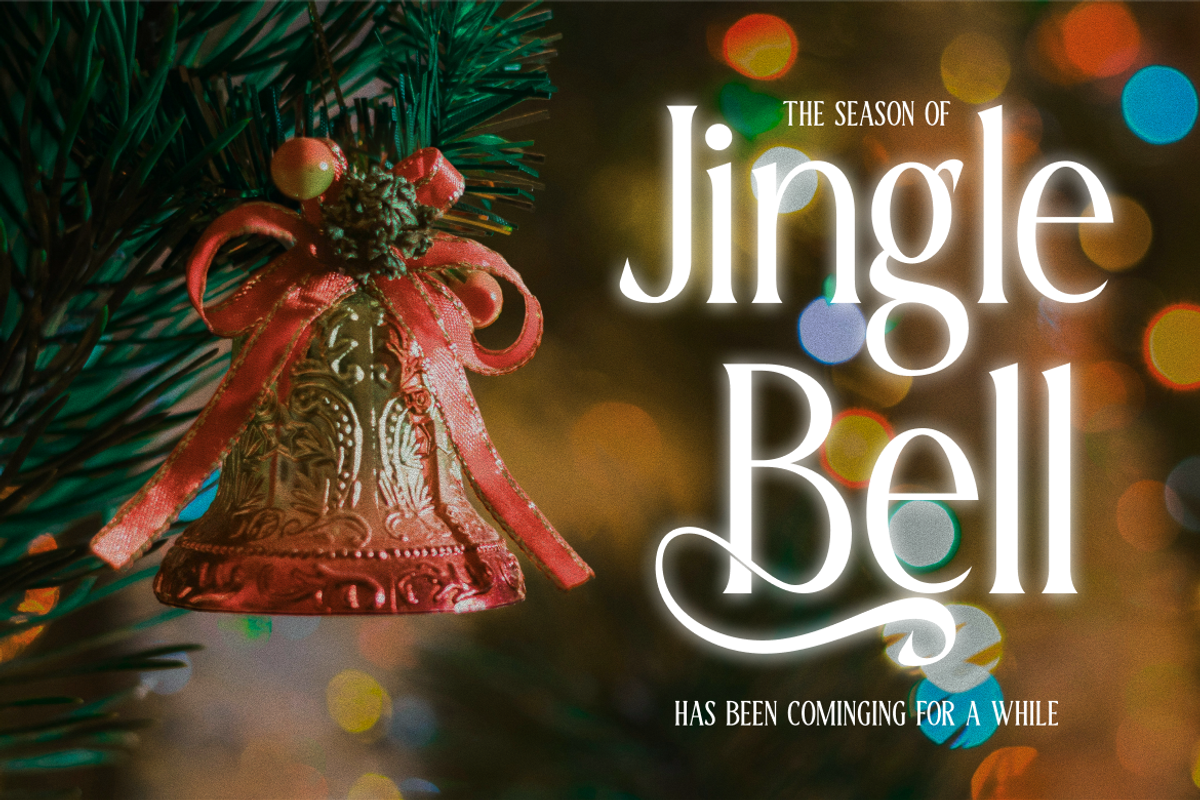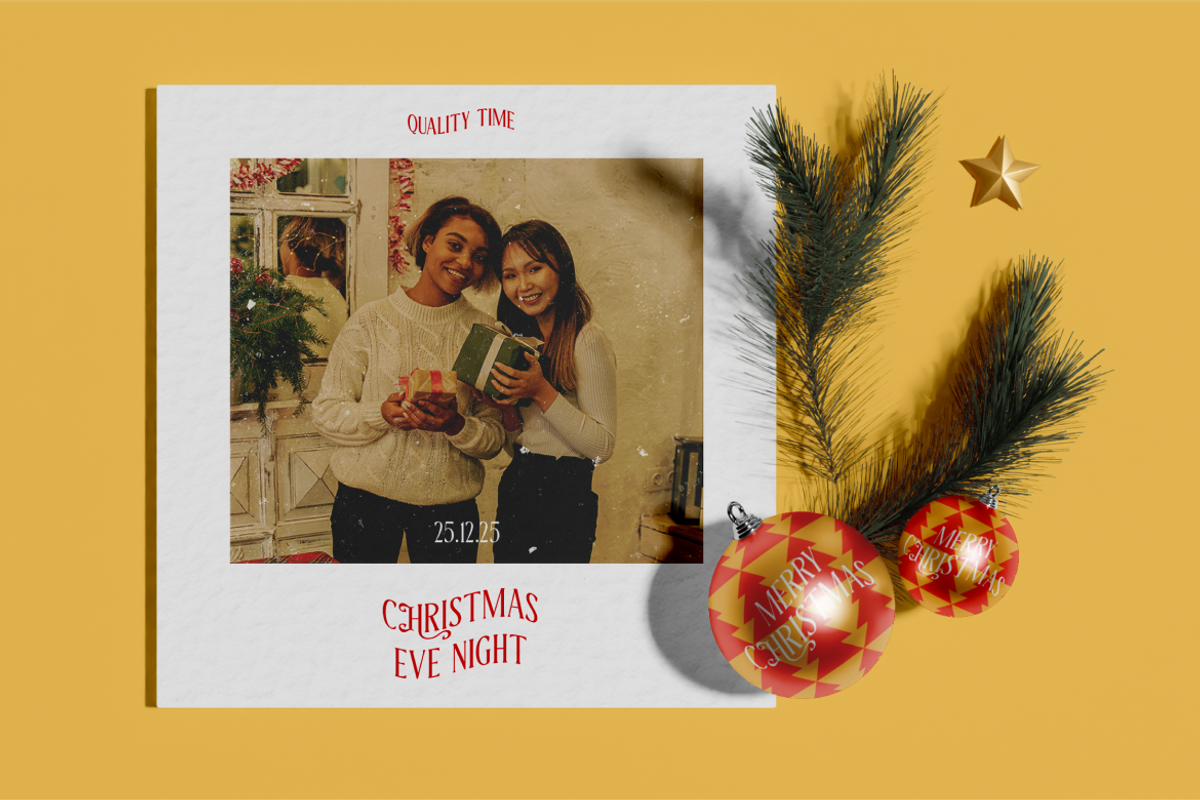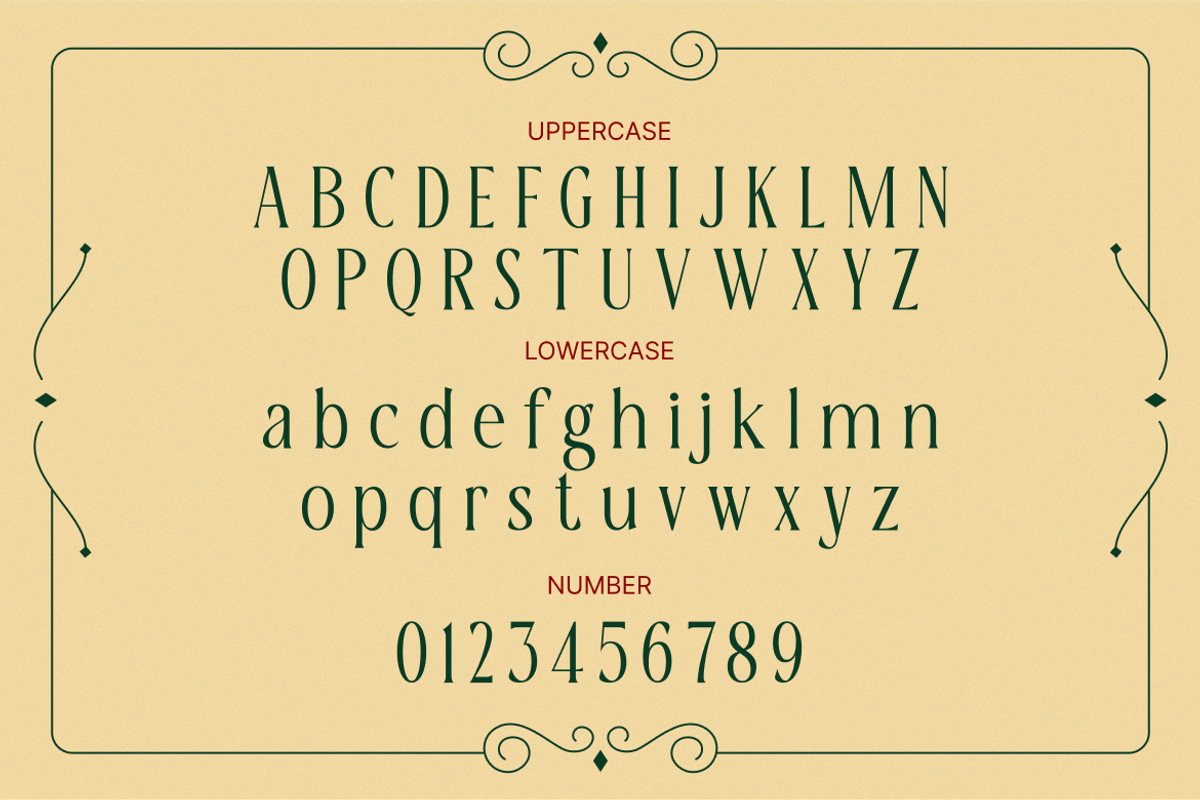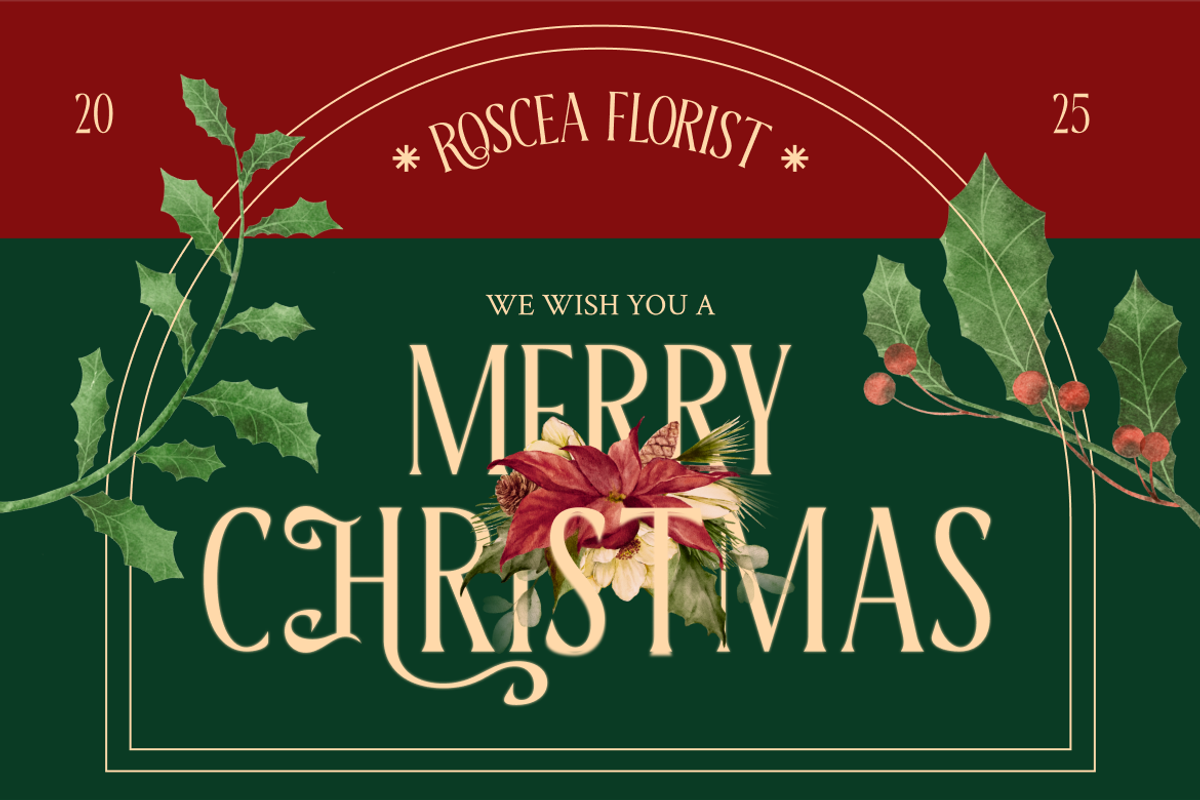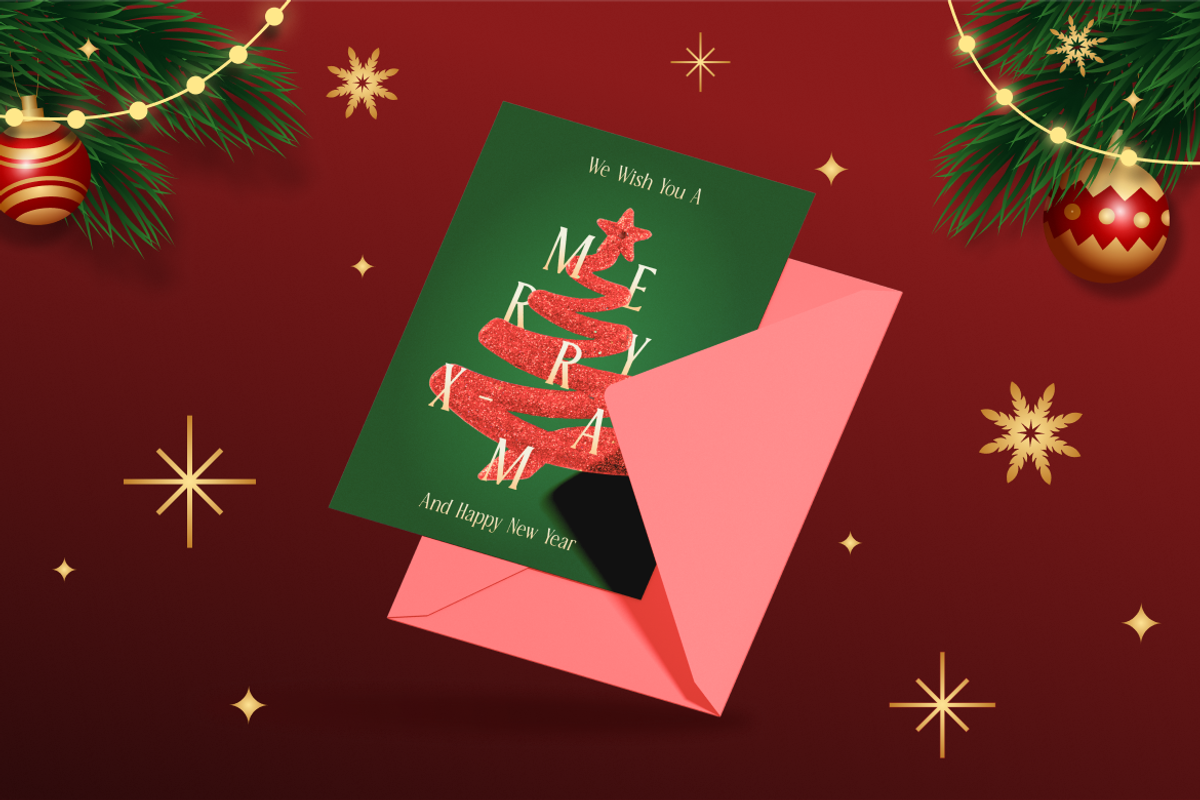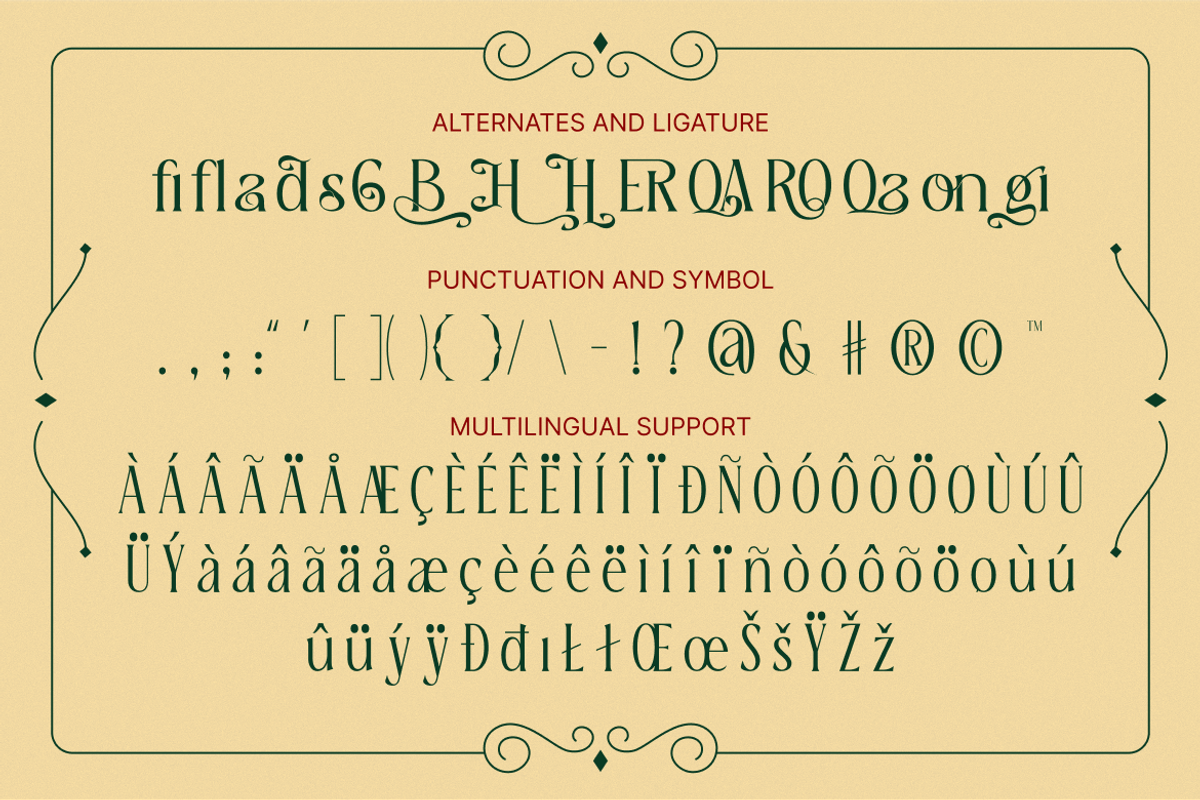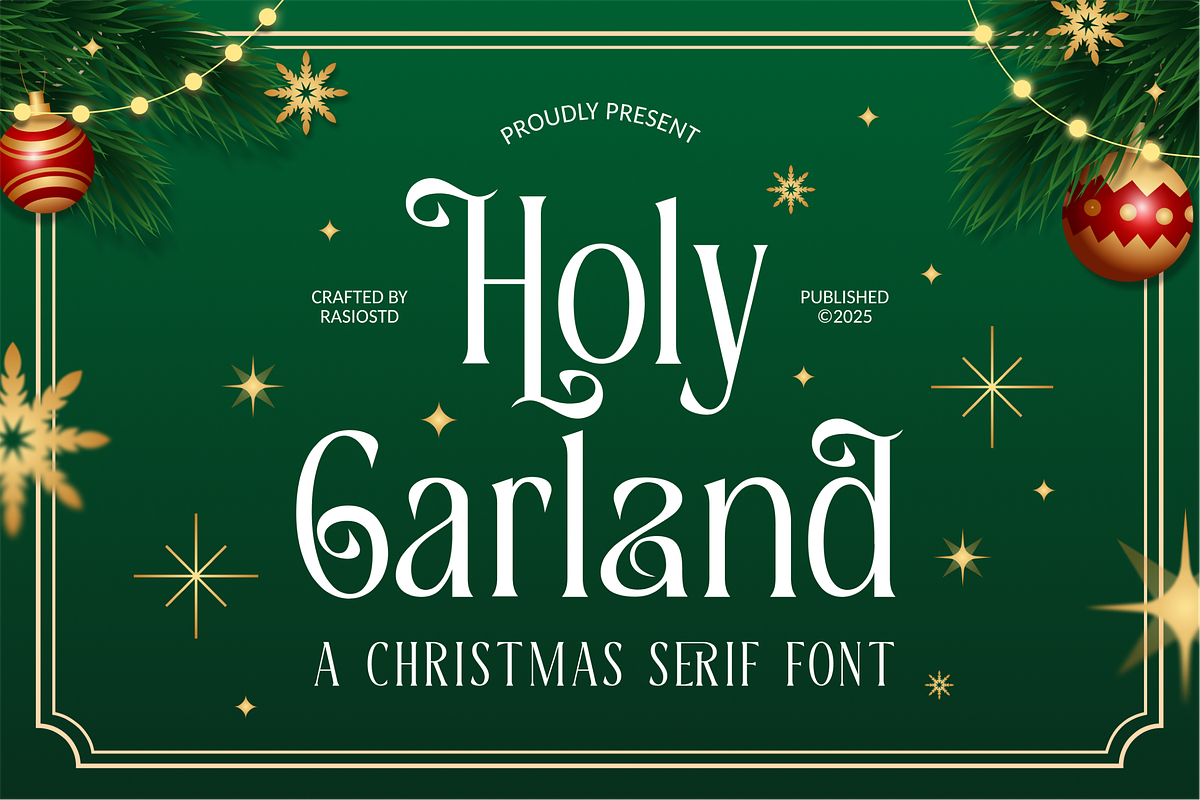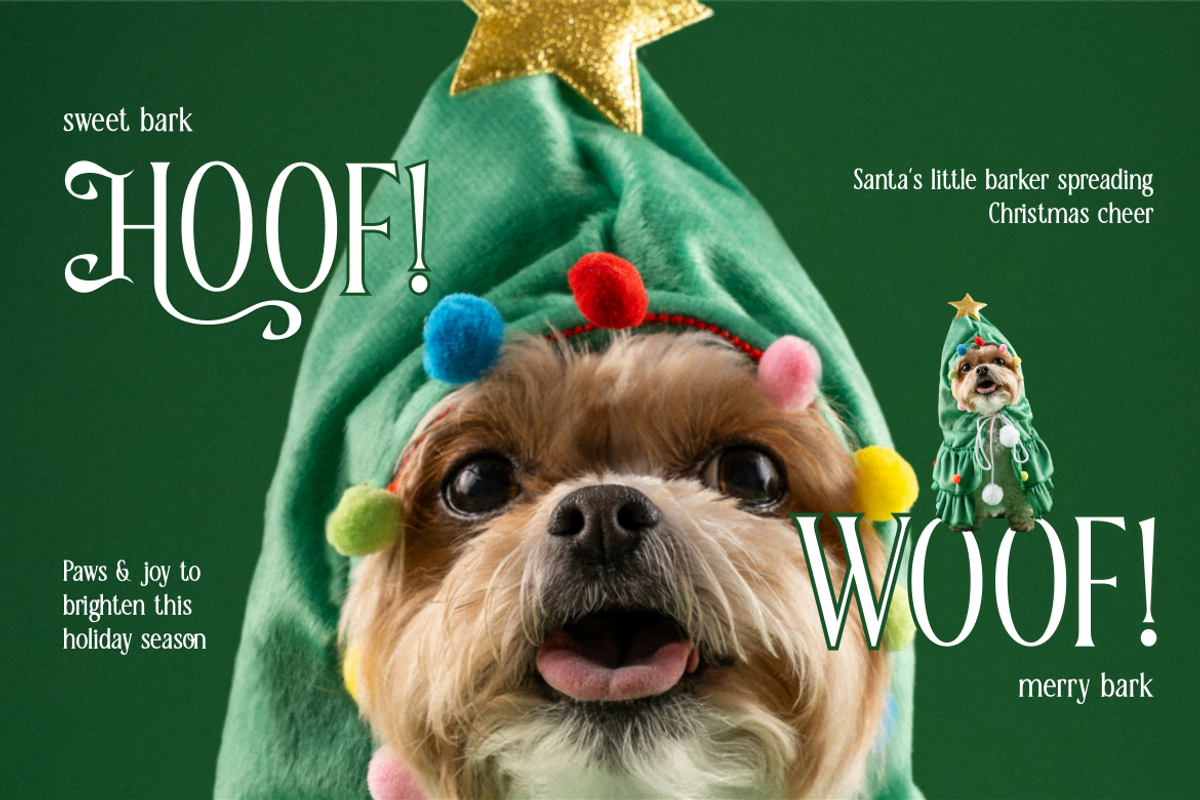
Holly Garland Christmas Serif Font
Holy Garland is an elegant display serif typeface crafted with graceful curves, festive swashes, and refined high-contrast strokes that evoke a classic holiday atmosphere. The letterforms combine timeless serif structure with calligraphic flourishes, creating a warm, luxurious, and celebratory personality perfect for seasonal designs.
Holy Garland is highly relevant for holiday and seasonal branding, Christmas greeting cards, invitations, gift packaging, boutique logos, event posters, social media promotions, and luxury editorial layouts. Its elegant swashes and classic serif character make it perfect for designs that need to feel warm, festive, sophisticated, and timeless.
- Classic serif structure with elegant high-contrast strokes
- Calligraphic swashes and decorative terminals for festive charm
- Soft curves and tapered serifs that create a graceful flow
- Balanced proportions for clear readability at display sizes
- Refined spacing that keeps headlines luxurious yet legible
- Holiday and Christmas greeting cards, invitations, and gift tags
- Seasonal branding, festive packaging, and boutique product labels
- Editorial headlines and elegant display typography
- Event posters, menus, and winter celebration signage
- Social media promotions and decorative marketing materials
Holy Garland a serif crafted for timeless holiday moments